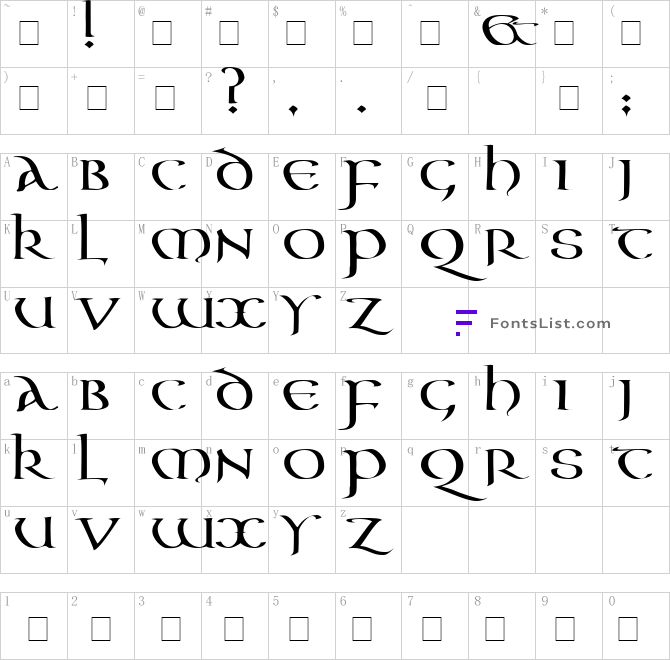
- Font Name:Aon Cari
Aon-Cari-Condensed.ttf is a very beautiful artistic font, Aon-Cari-Condensed.ttf is widely used in the design and printing of various books and pictures,Aon-Cari-Condensed.ttf has a strong visual impact,Aon-Cari-Condensed.ttf is a commonly used font in newspapers, magazines and books, and is used in posters, e-commerce Poster design, store design, logo design, font design and other fields.Aon-Cari-Condensed.